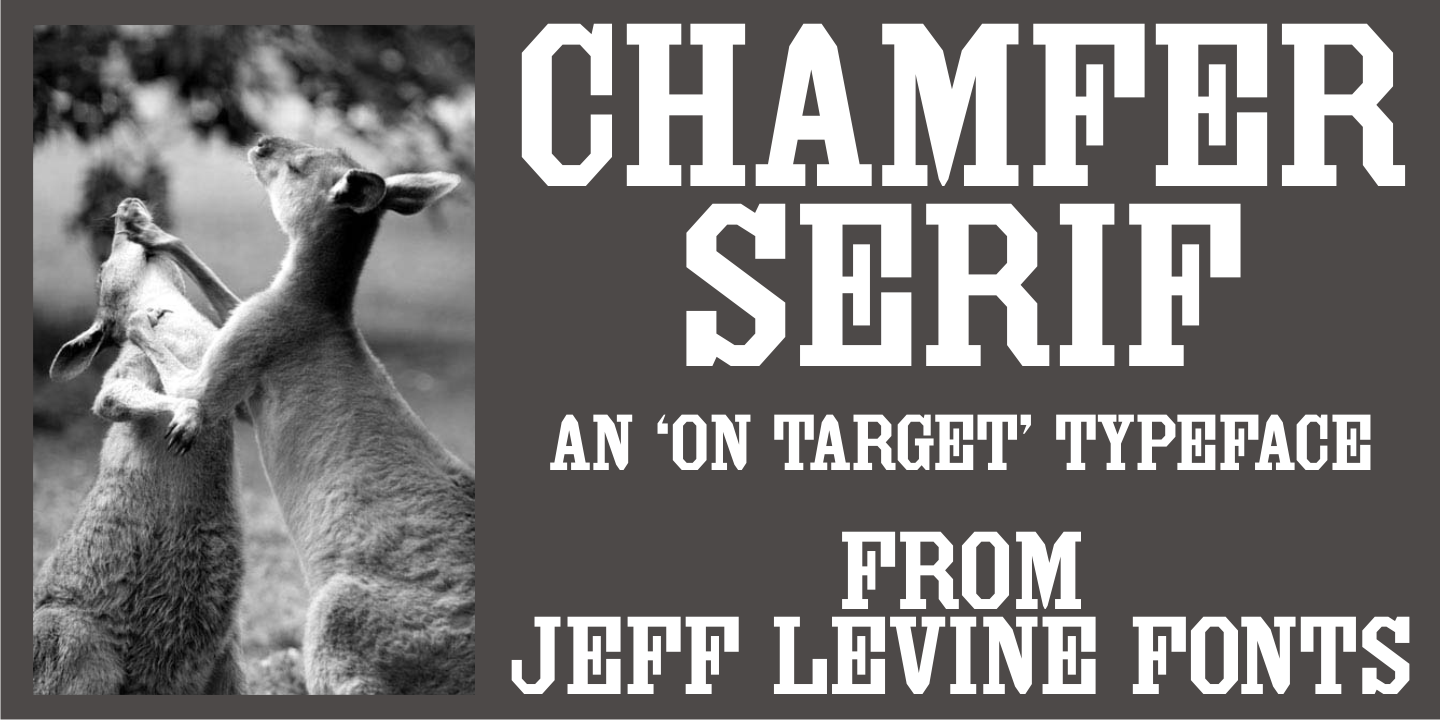
Chamfer Serif JNL Font is a distinctive and sturdy typeface that beautifully blends classic serif elegance with a unique, almost industrial chamfered edge. This creates a fascinating aesthetic that is both traditional and remarkably modern, making it an excellent choice for a wide variety of design projects. Imagine it perfect for architectural firm branding, robust product packaging, vintage-inspired advertising, compelling editorial designs for history or engineering, unique signage, and strong website headers. This font excels in environments where a sense of durability, sophisticated craftsmanship, and a bold, legible presence are paramount. It’s particularly effective for conveying a blend of heritage and contemporary strength, ensuring your message stands out with an unmistakable character and solid reliability.
What makes Chamfer Serif JNL Font truly exciting is its unique visual texture derived from the chamfered serifs and subtly angled edges, which provide a feeling of carved or sculpted letterforms. This detail adds depth and interest without sacrificing readability, giving it a powerful, almost three-dimensional quality. It's a font that doesn't just display text; it tells a story of precision and lasting quality, injecting your designs with a sense of robust artistry and timeless appeal. It has a powerful ability to feel both incredibly grounded and surprisingly versatile, making it an ideal tool for designers who want their work to convey a sense of craftsmanship, reliability, and strong visual impact. Chamfer Serif JNL Font empowers brands and creatives to project an image of dependable sophistication and enduring design.
The Chamfer Serif JNL Font family often focuses on delivering its unique display style with optimal impact. You'll typically find it available in a strong, regular weight that best showcases its distinctive chamfered elements and robust character. While it might not feature a wide range of weights or conventional italic styles, some versions could include stylistic alternatives for certain characters or ligatures that further emphasize its unique appearance, allowing for even more customized typographic compositions. The comprehensive character set generally covers standard Latin characters, numbers, and a selection of punctuation, ensuring that Chamfer Serif JNL Font Free Download is suitable for a wide array of creative and commercial applications where a bold and distinctive statement is desired. Its memorable and forceful presence ensures that any project featuring Chamfer Serif JNL Font will leave a strong, lasting impression.